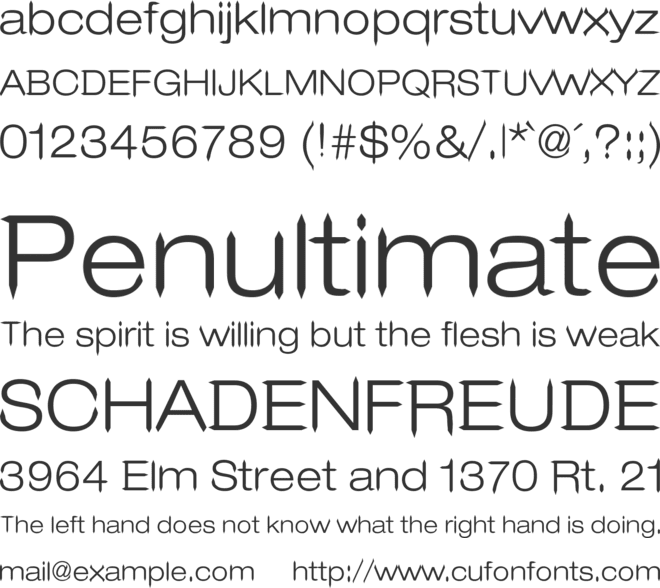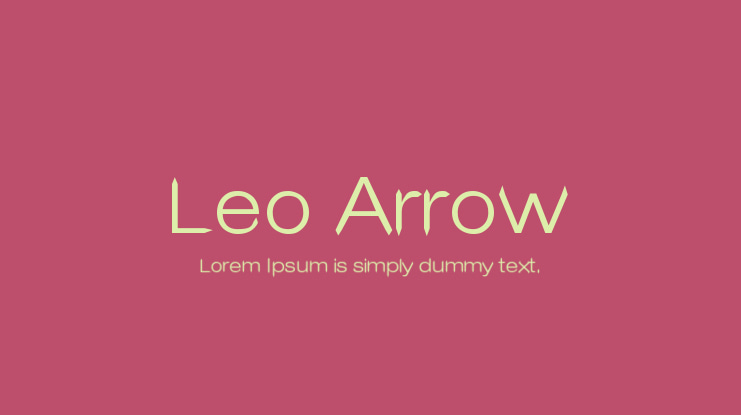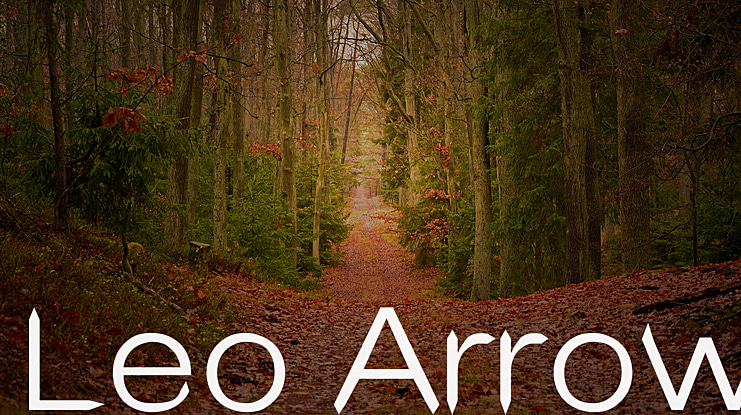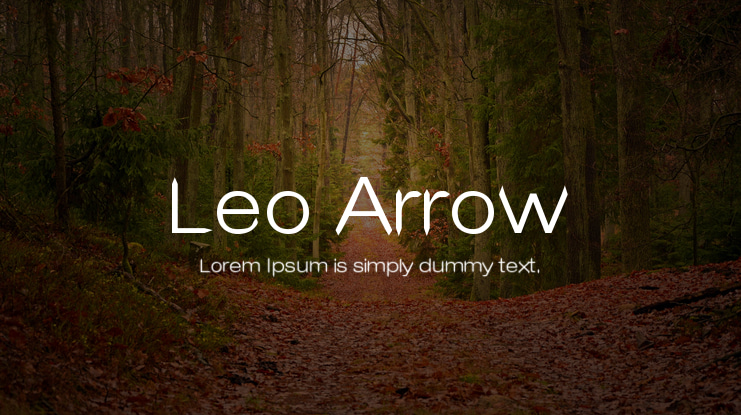
Leo Arrow Font
Tipography Leone Florence
Author name: Tipografia Leone Florence
Description font: Leo Arrow is a Sans Serif font conceived and designed by typography Lion of Florence (Italy). Smooth lines and fine font give a certain elegance as well if given the modern design.